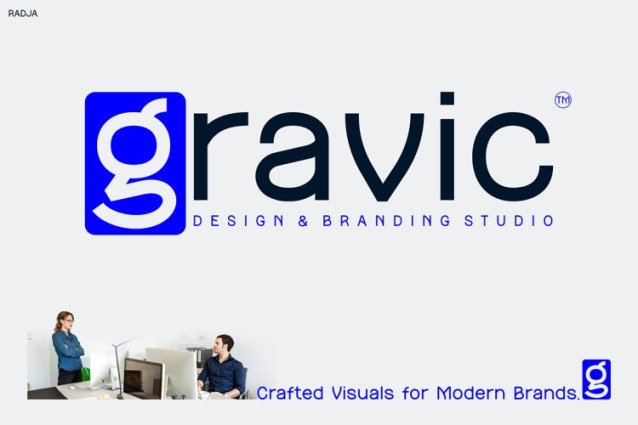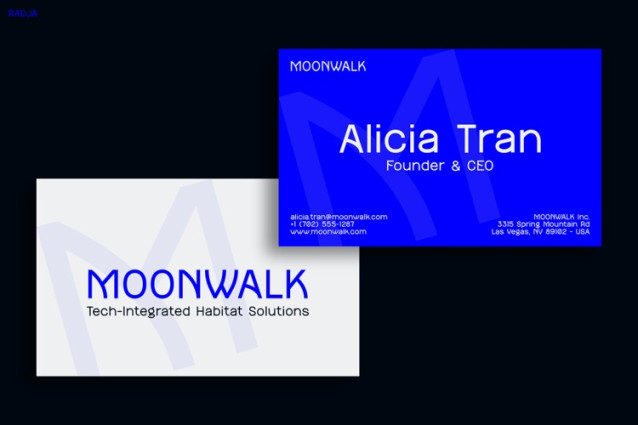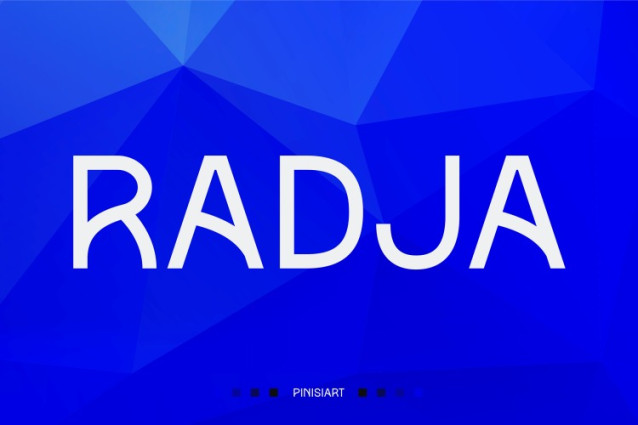
Radja Font
Radja Font brings sharp structure and a futuristic edge to your creative work. Designed with bold geometry and minimalist styling, this font adds clarity and confidence to your message. It doesn’t just look modern—it feels intentional, making it perfect for content that needs to stand out with purpose.
From the very first glance, Radja creates a strong visual presence. Its clean lines, even spacing, and thoughtful proportions work together to establish consistency. Unlike fonts that fade into the background, Radja adds energy while keeping things professional. As a result, your designs look more refined and your messages more powerful.
Moreover, Radja is extremely versatile. You can use it for branding, tech interfaces, digital posters, mobile layouts, and even Instagram carousels. Wherever clarity and confidence matter, this typeface rises to the occasion. Whether it’s in bold headlines or structured UI components, Radja adapts smoothly without losing impact.
Even better, it pairs well with other fonts while holding its own in solo use. You’ll find it fits beautifully in minimalist layouts, clean grid systems, or modern web design. Additionally, Radja performs consistently across light and dark themes, responsive devices, and screen sizes—making it ideal for both print and digital use.